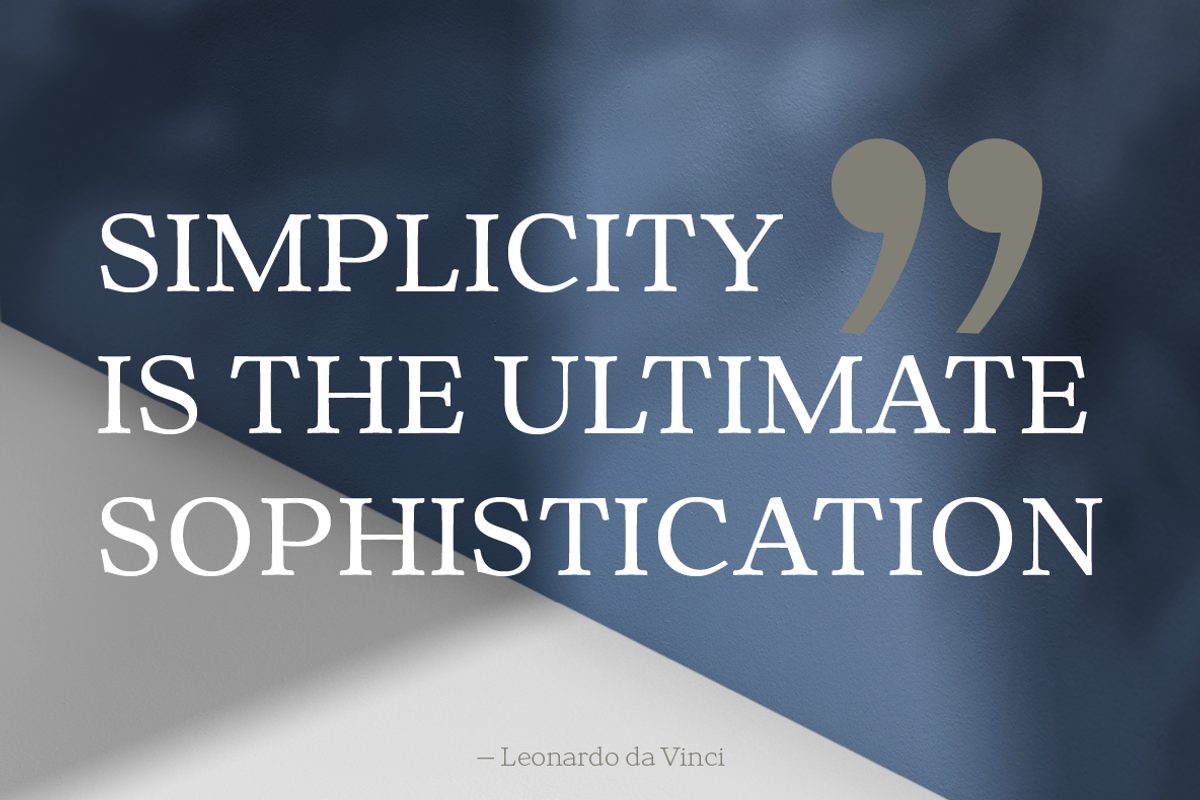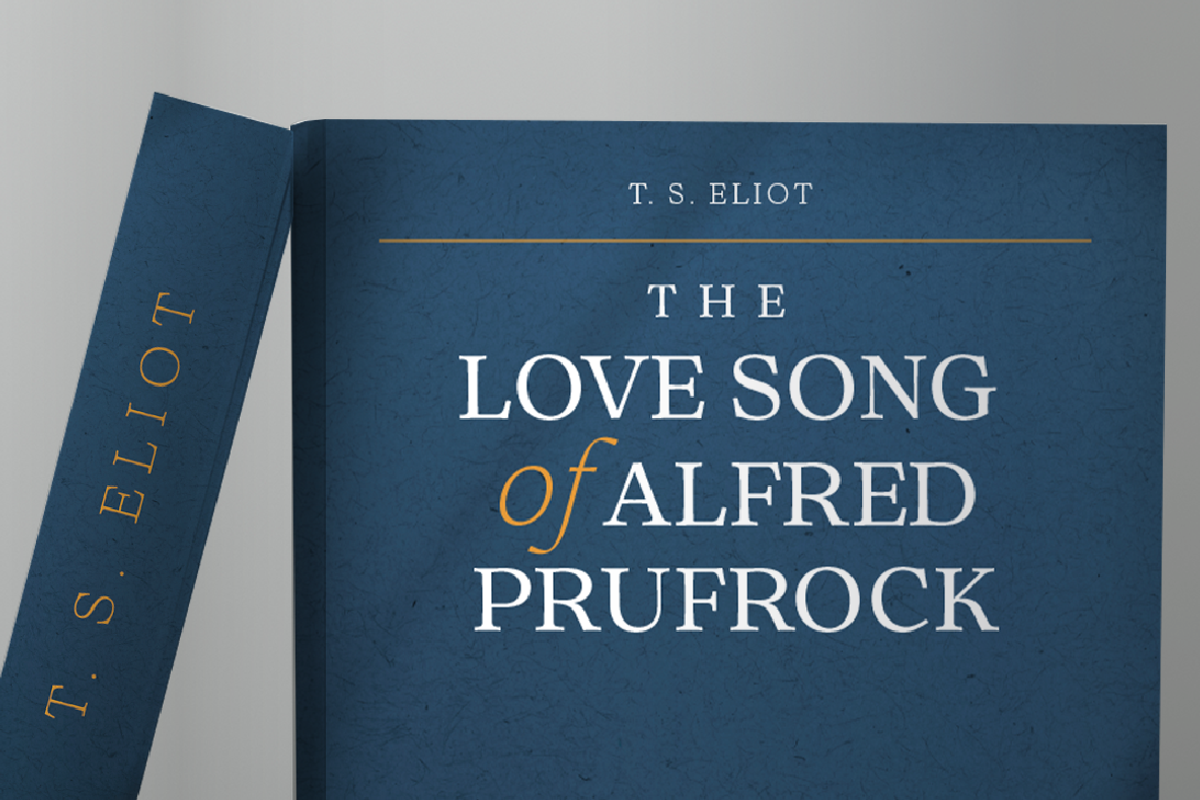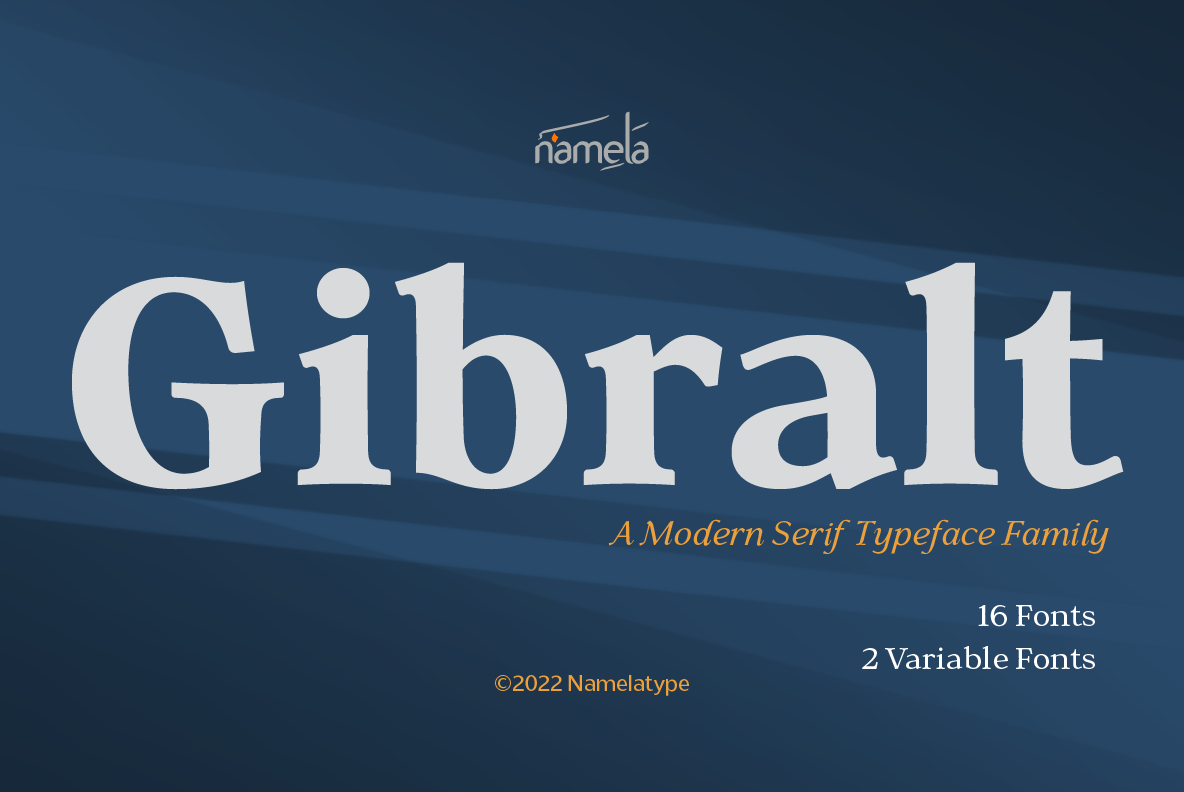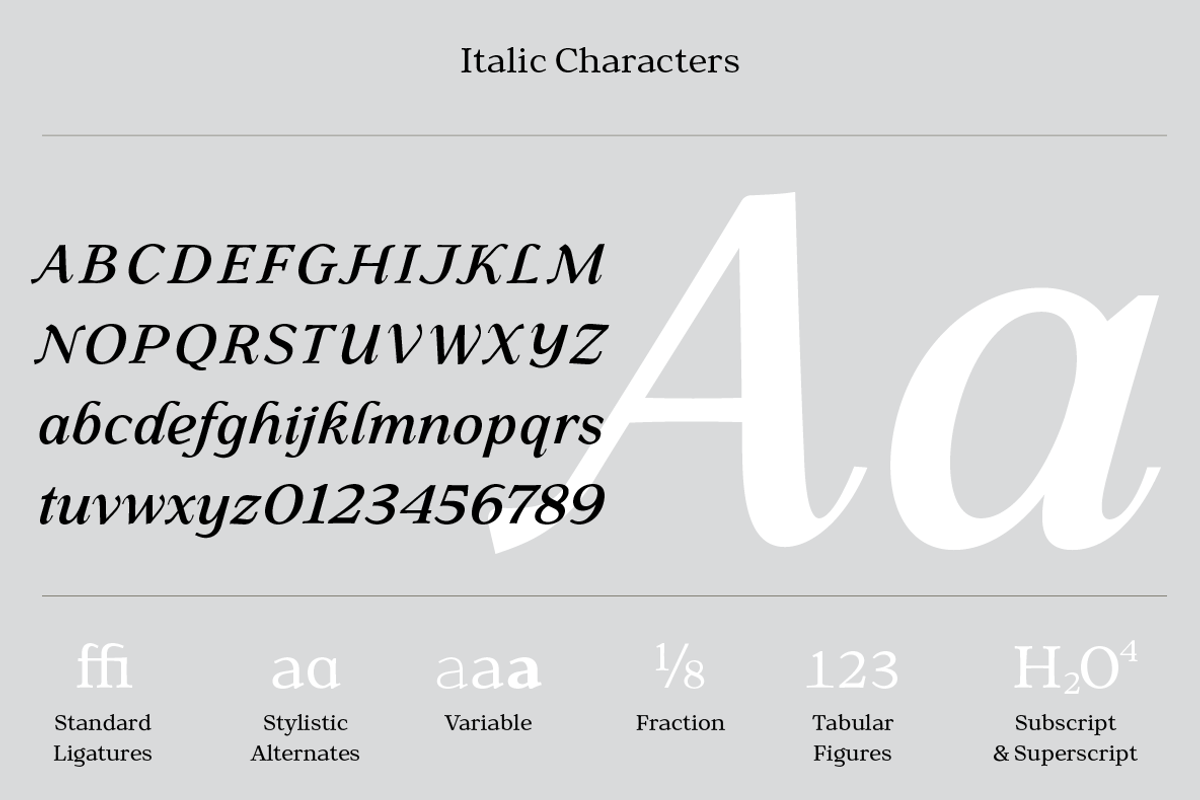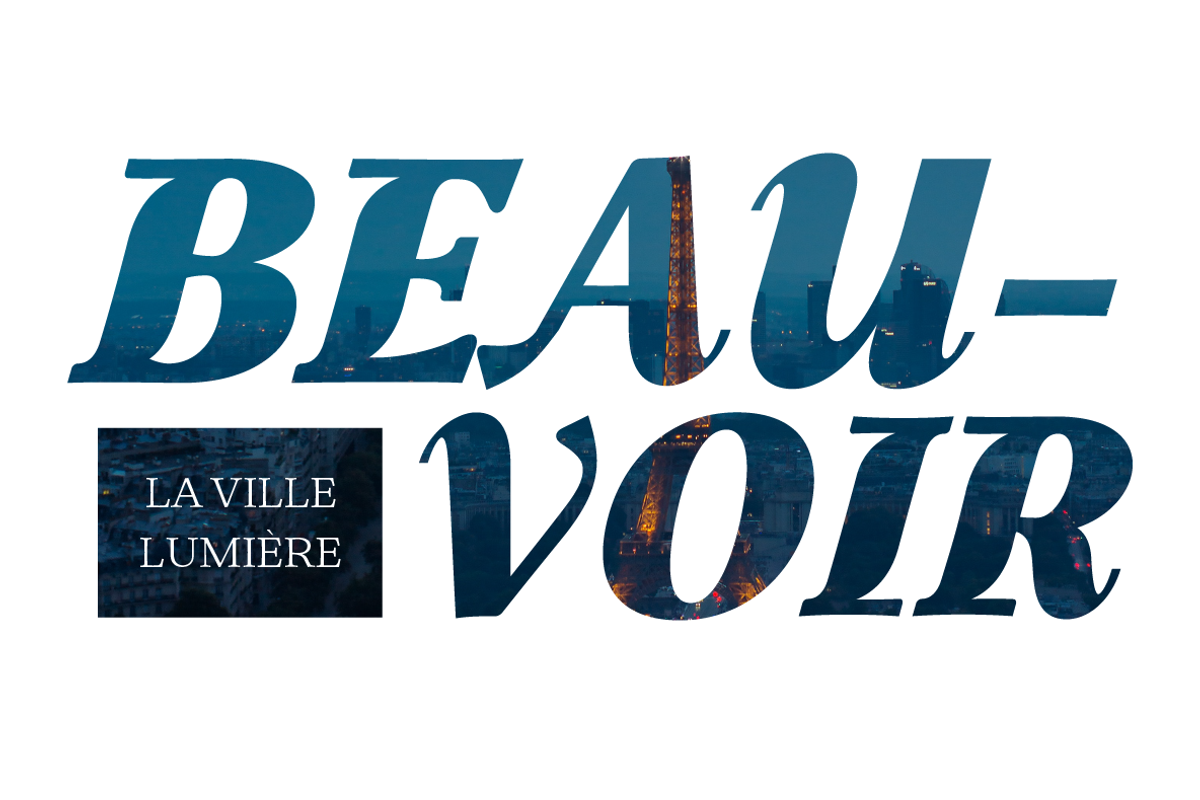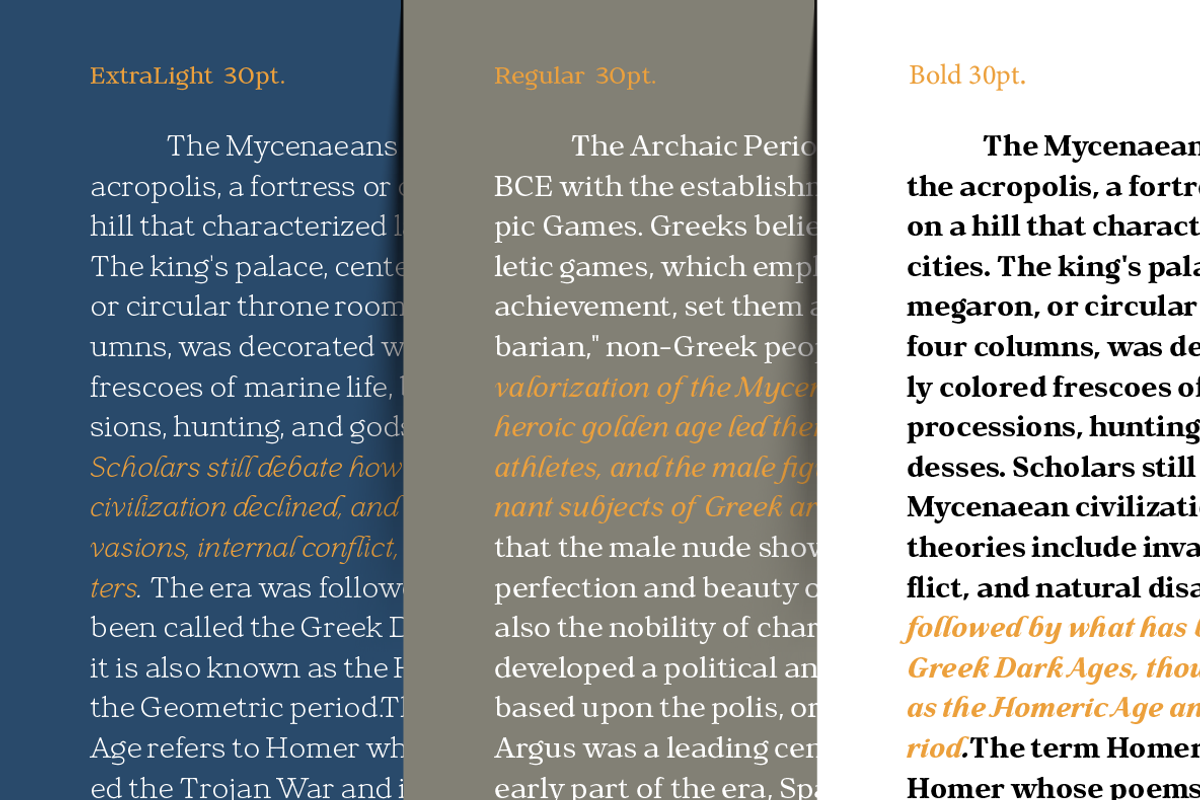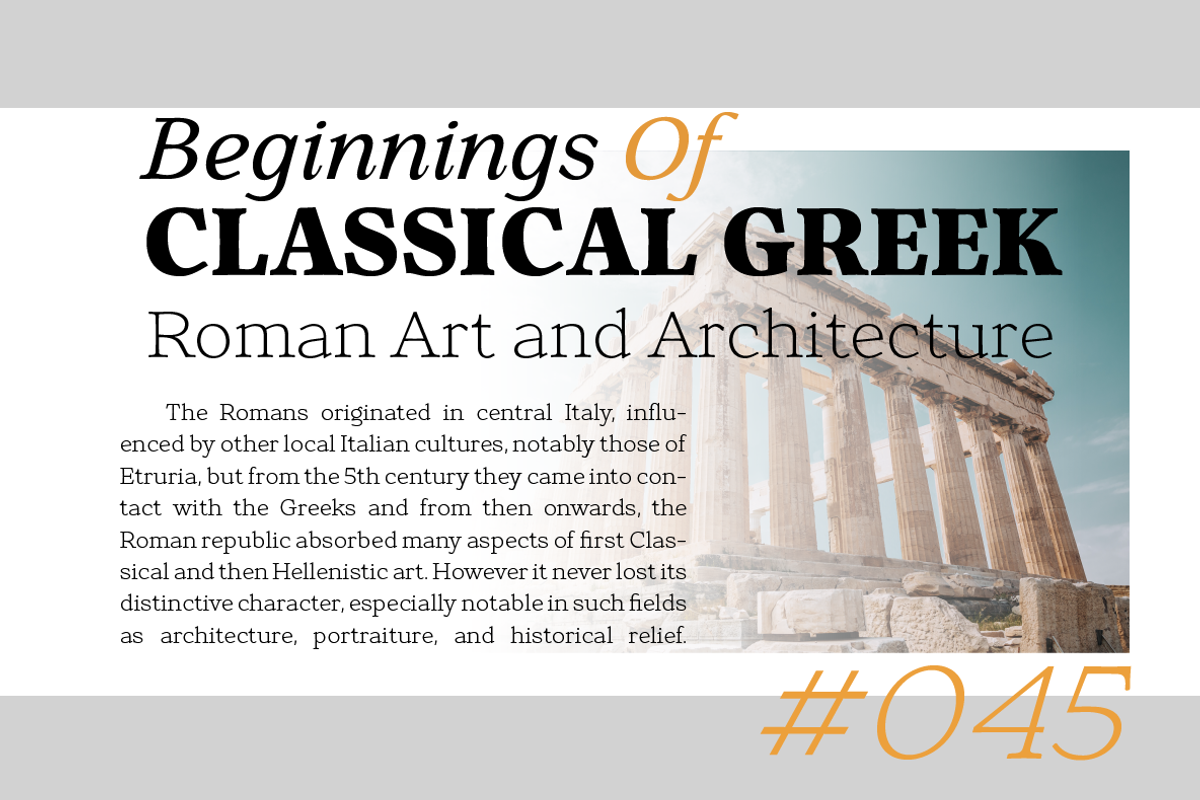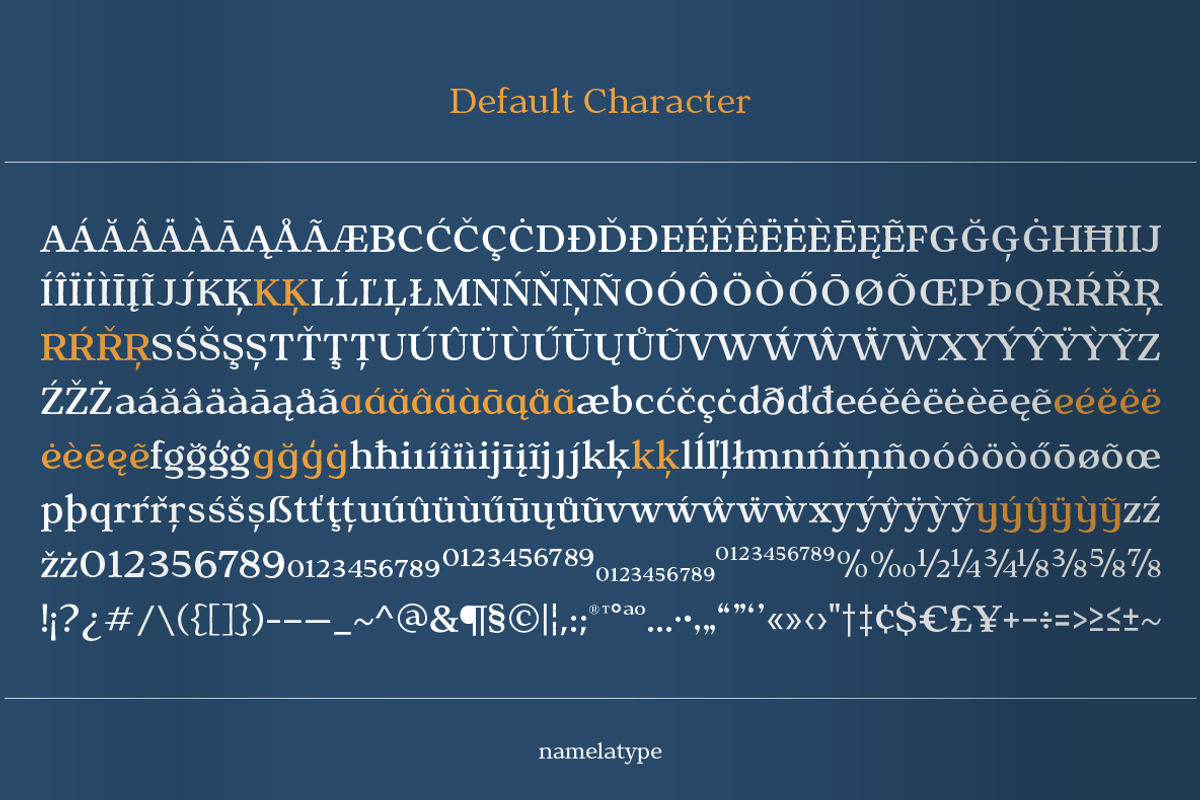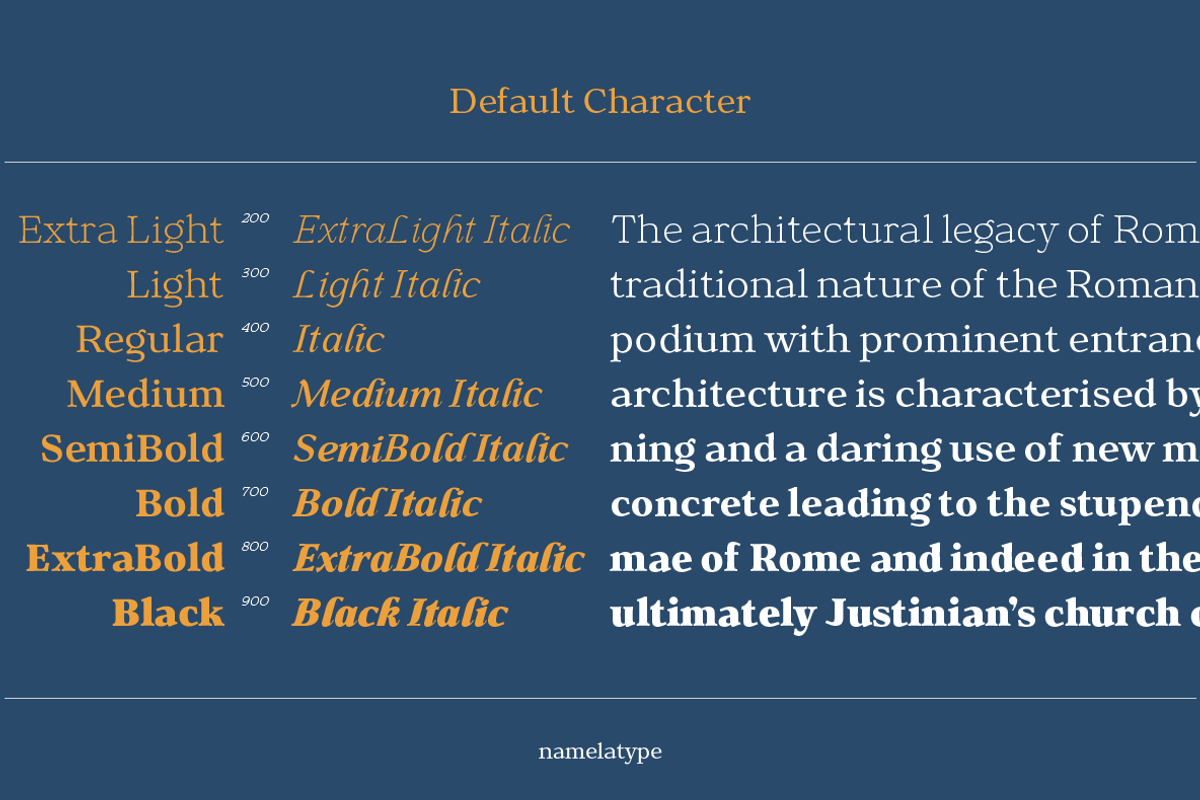
Gibralt Font | Modern Serif Typeface
Gibralt is a Modern Serif typeface that pays homage to the Venetian style typefaces. Emerged in the late 14th century while infusing it with a touch of contemporary improvisation. This font’s hallmark is its high contrast design, where the stems display a graceful variation. They aren’t entirely straight; instead, they elegantly narrow in the middle. Culminating in a unique combination of rounded and right-angled terminals and serif ends.
Gibralt Modern Serif offers a wide spectrum of creative possibilities with its 8 distinctive styles. Ranging from the Extra Light to the Black, each meticulously paired with matching italics. This versatility makes it an ideal choice for a myriad of applications. From impactful headlines to immersive paragraphs, flowing text, and even high-quality printing. Gibralt font isn’t just a font; it’s a bridge between tradition and modernity. Ready to enrich your designs with a timeless yet contemporary flair.